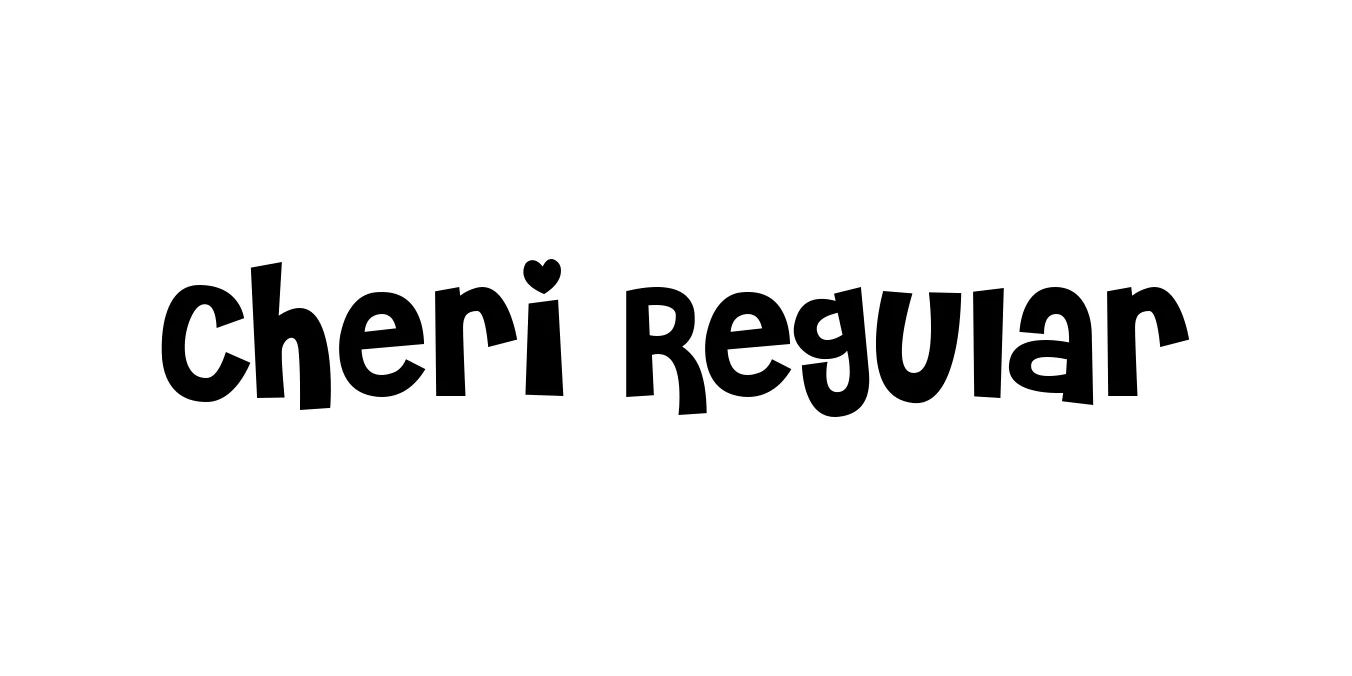
Cheri Regular
Designed by Ben Balvanz (Fontalicious)
| Category | Display / Decorative |
| Designer | Ben Balvanz (Fontalicious) |
Cheri Regular is a whimsical and iconic display typeface designed by Ben Balvanz of Fontalicious. Released during the height of the early 2000s digital font boom, it quickly became a staple for its playful, bubble-letter aesthetic. The most distinctive feature of Cheri is its soft, rounded forms and the characteristic use of heart shapes as dots for the lowercase 'i' and 'j', which cements its identity as a fun and lighthearted font.
This typeface is part of a larger family that includes variations like 'Cheri Liney', offering designers flexibility in maintaining a consistent yet varied look. It is widely recognized in pop culture, often appearing on stationery, teen-oriented branding, and craft projects. Its bold weight and charming curves make it highly legible for short headers while maintaining a strong decorative presence that appeals to fans of 'kawaii' and nostalgic Y2K design styles.
Cheri Regular Best Uses
Excellent for logos targeting children, beauty products, or candy brands.
Perfect for birthday cards, baby shower invites, and festive party announcements.
Ideal for eye-catching YouTube thumbnails and decorative aesthetic Instagram graphics.
Great for custom stickers, t-shirts, and scrapbooking layouts.